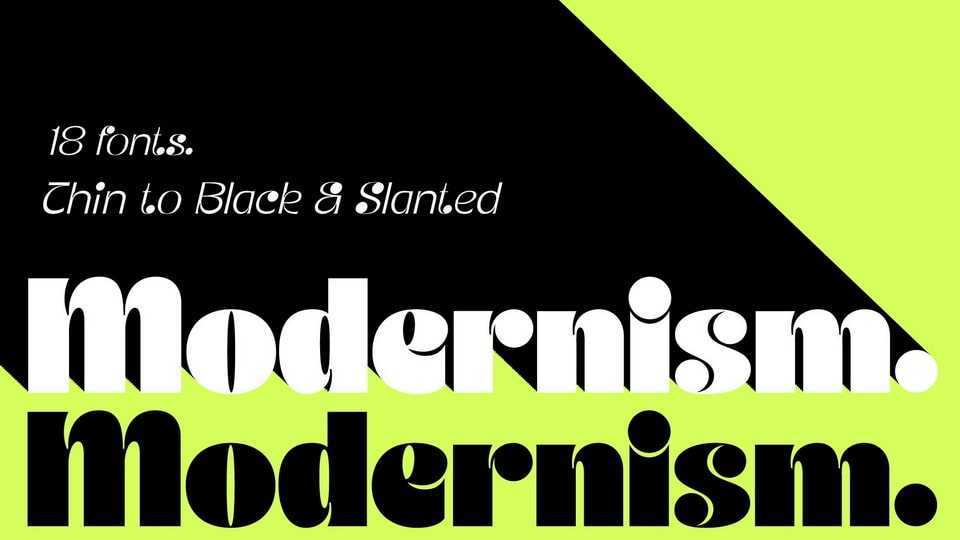
Download JT Modernism font, a cutting-edge typeface that seamlessly blends a funky aesthetic with a modern twist. The unique charm of JT Modernism lies in its slanted design for each weight, adding a dynamic and energetic flair to your typographic creations